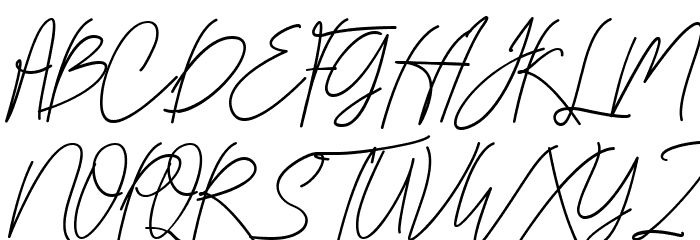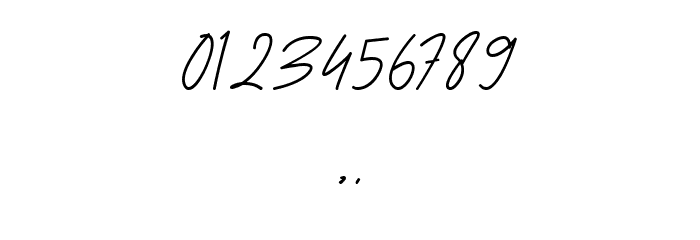
Lenkay Regular Font
A flowing, handwritten script font with elegant, elongated characters and a natural, cursive style.
Elegant handwritten script font.
- Proposed Projects: Invitations, greeting cards, personal branding.
- Category: Script
- Use Case: Logos, Invitations